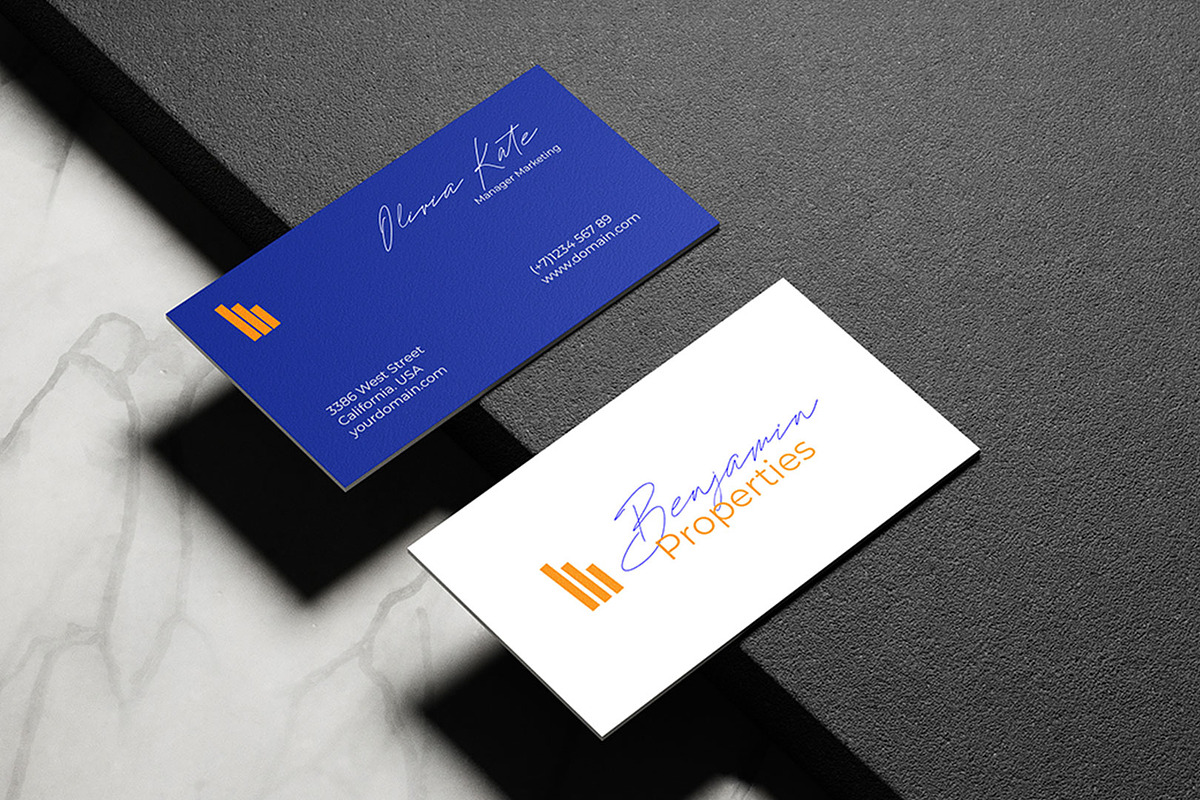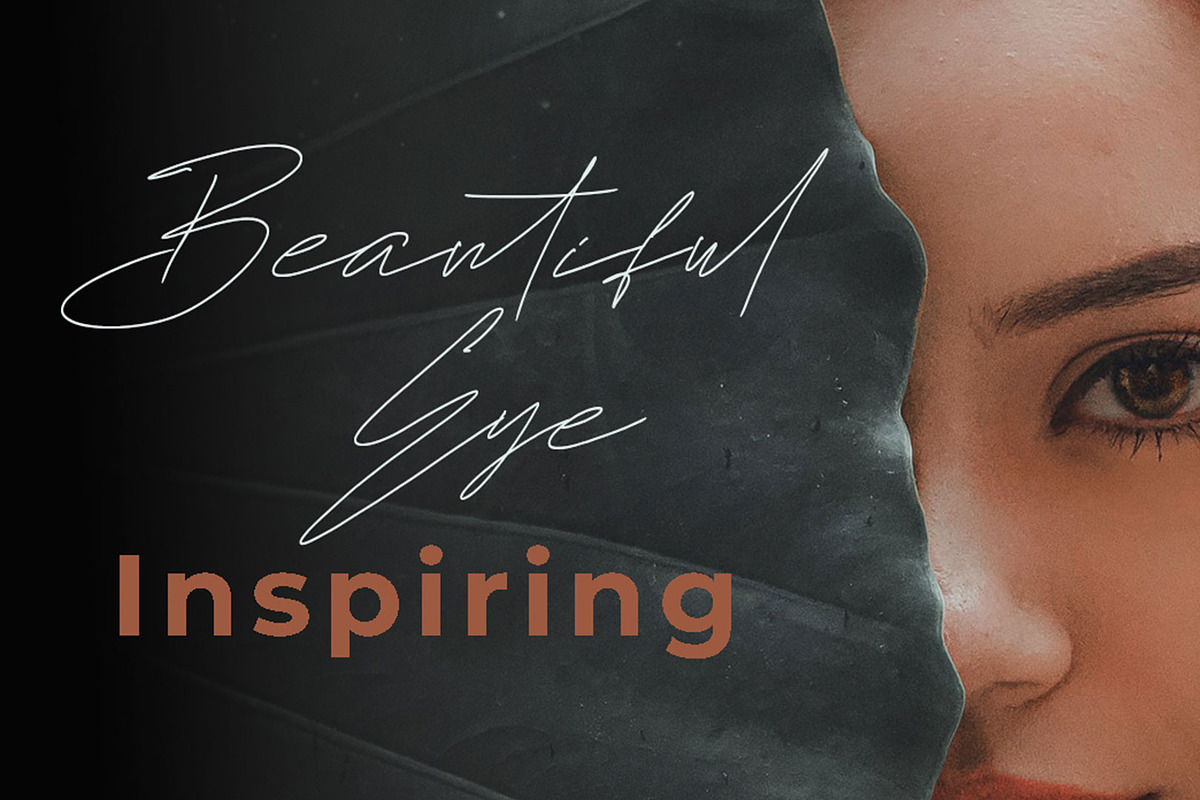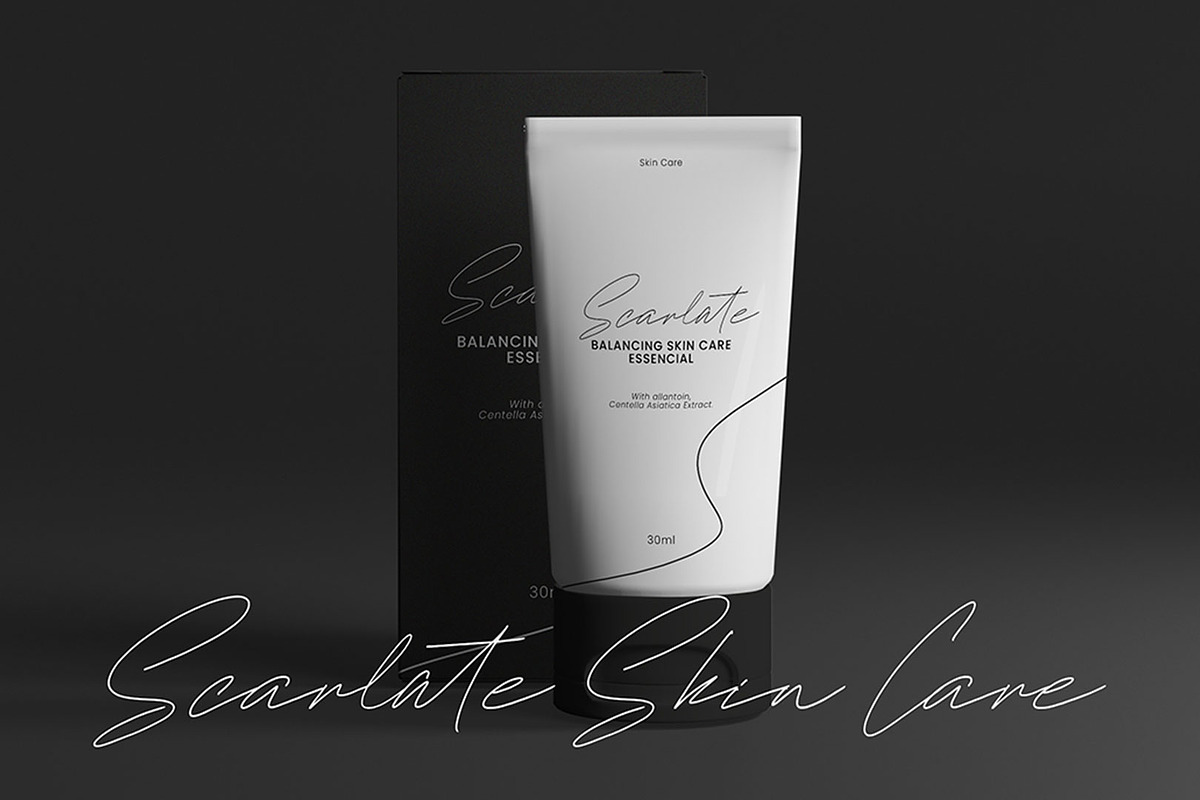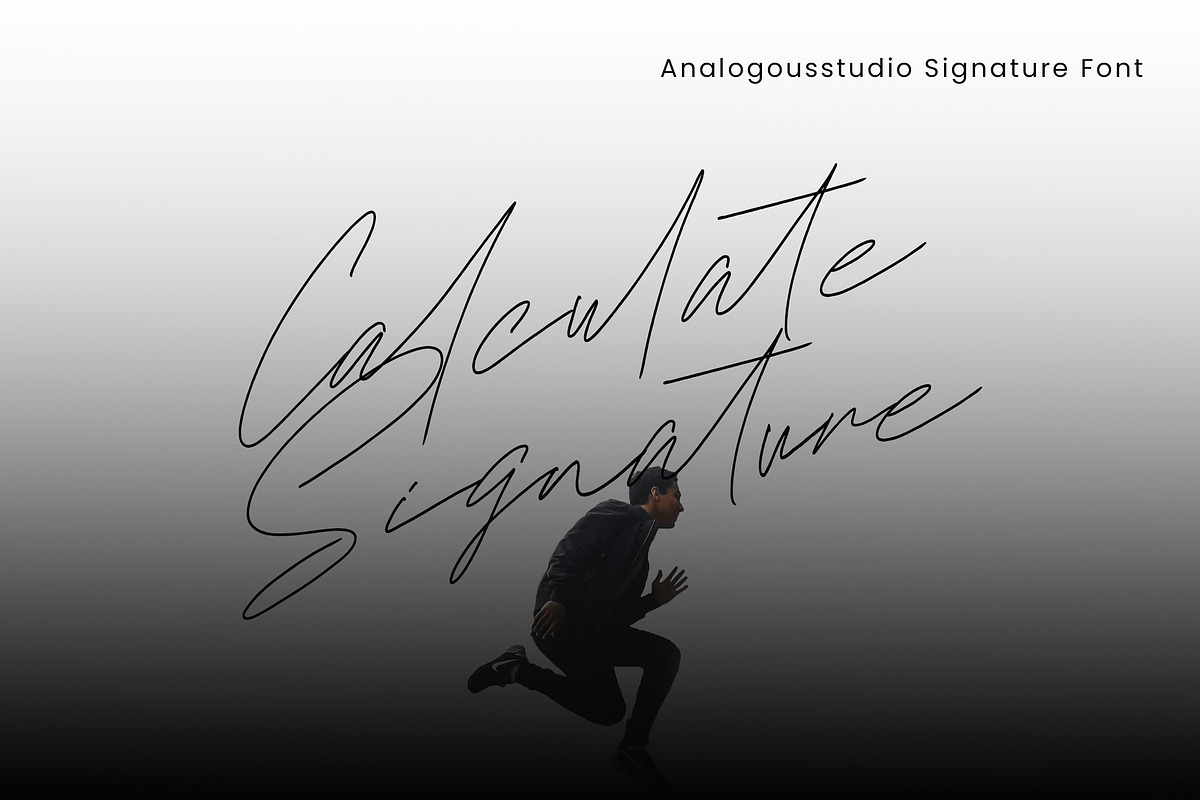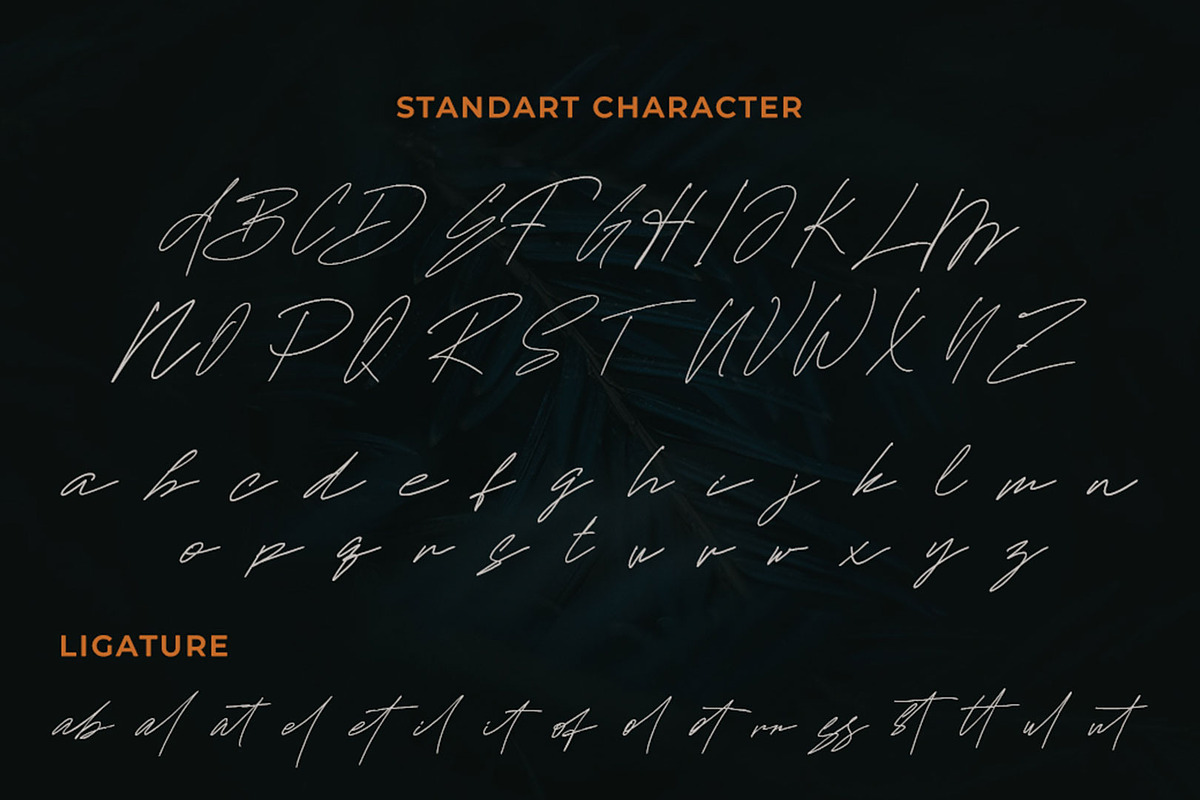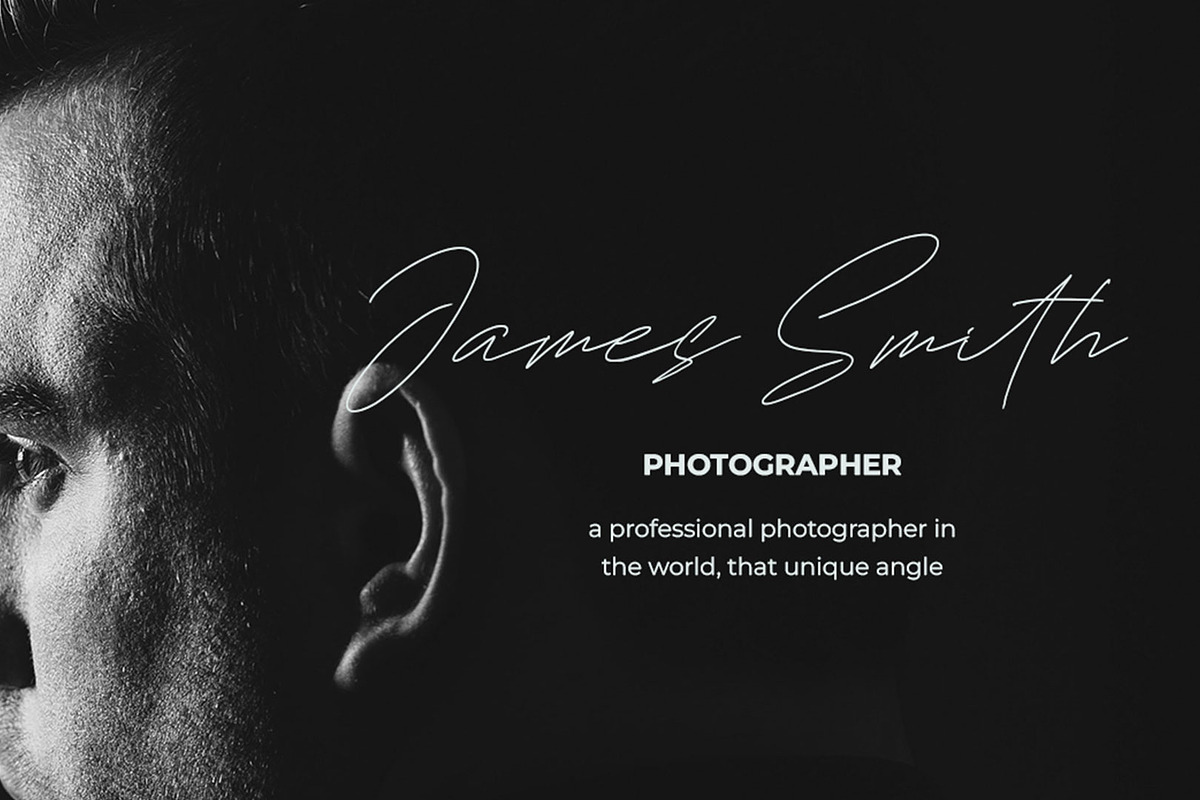
Calculate Signature Font
We introduce our new product called Calculate Signature Font
Calculate Signature Font is a Signature font that you can use to make a design for logo branding, poster headline, magazines, book titles, business cards, beautiful fashion designs, advertisements, product designs, wedding invitation, signature or handwritten quote.
-Basic Latin A -Z and a – z
-Number
-nternational Symbol
-International glyphs
-Ligature